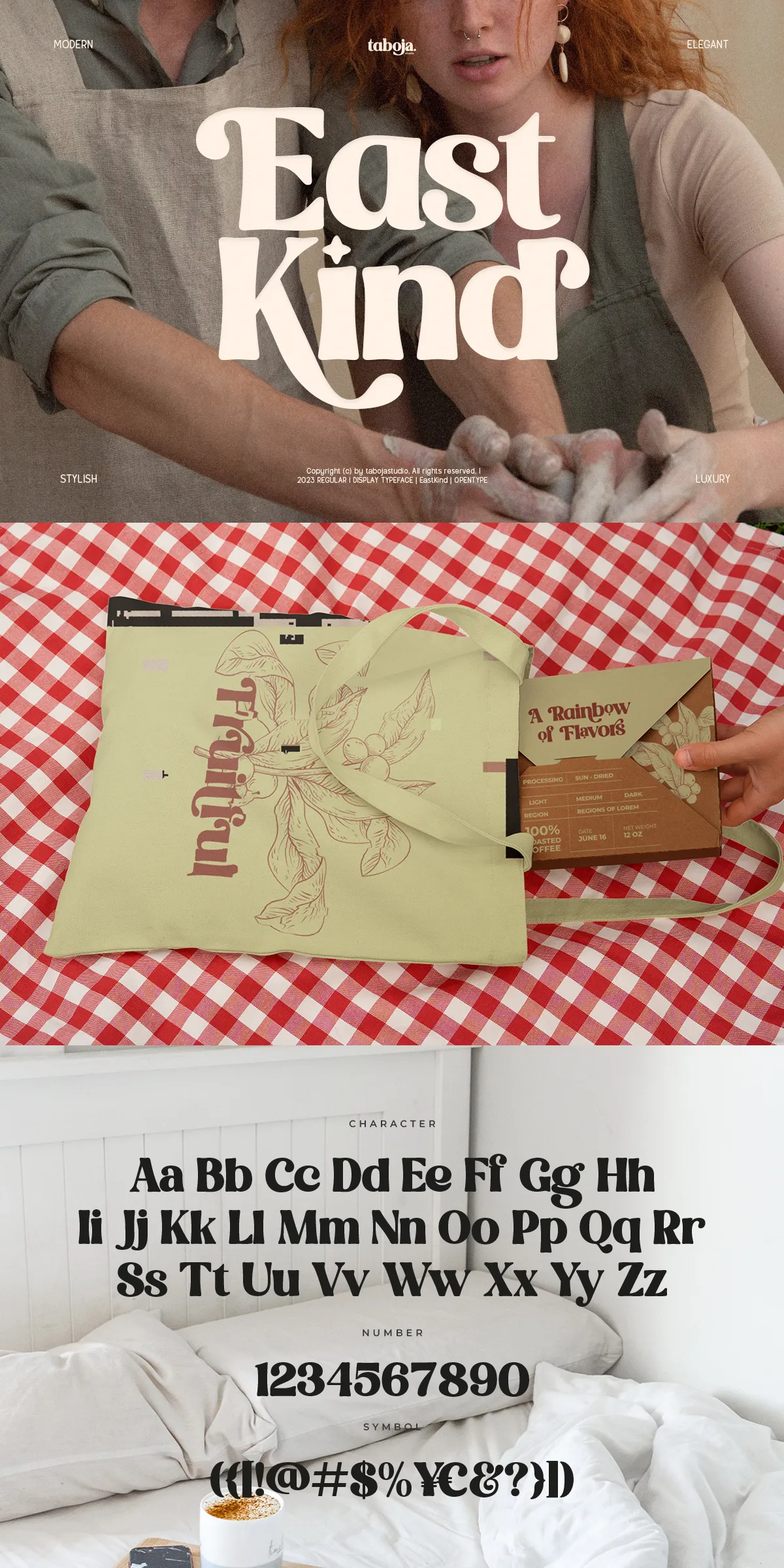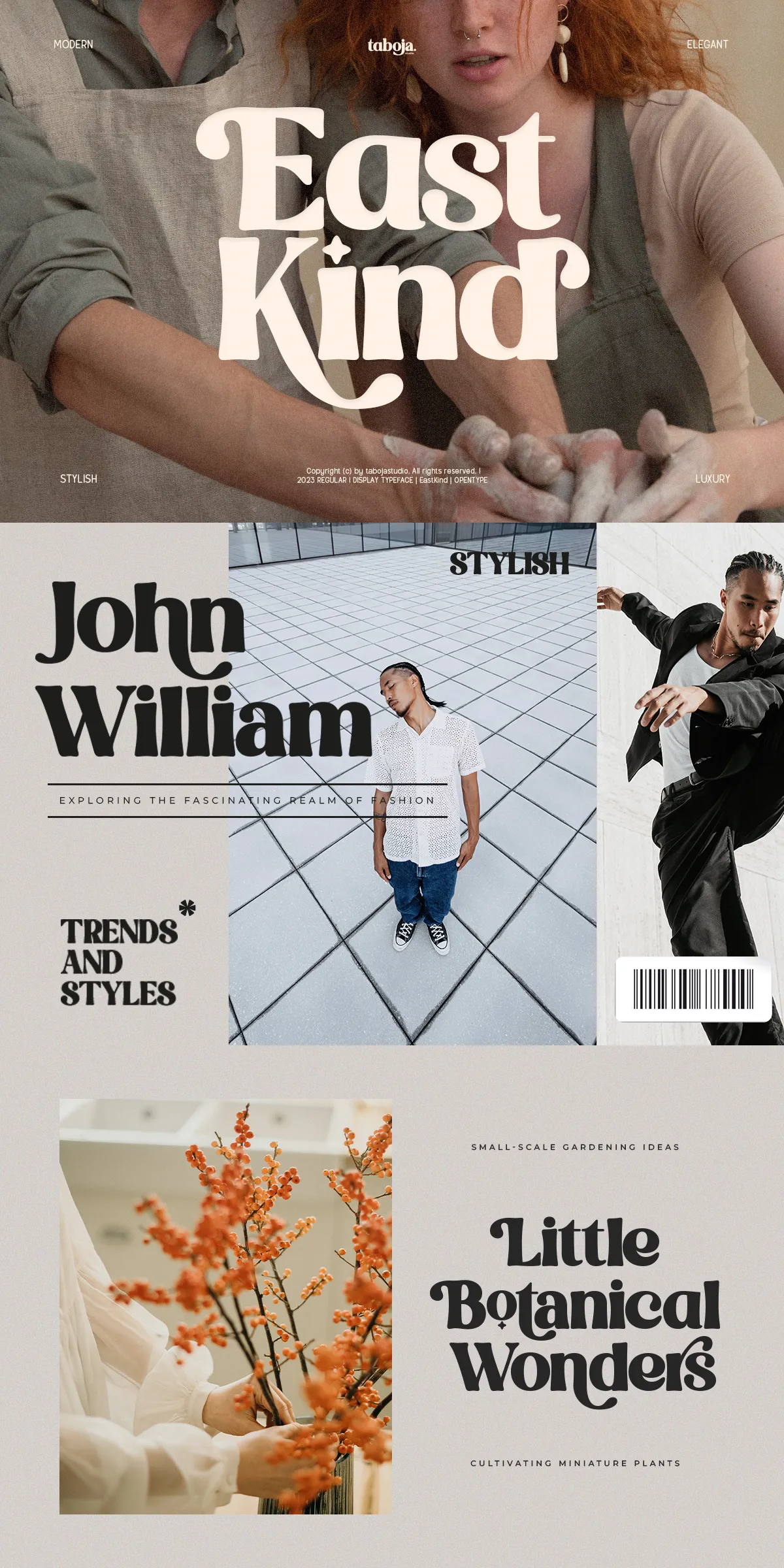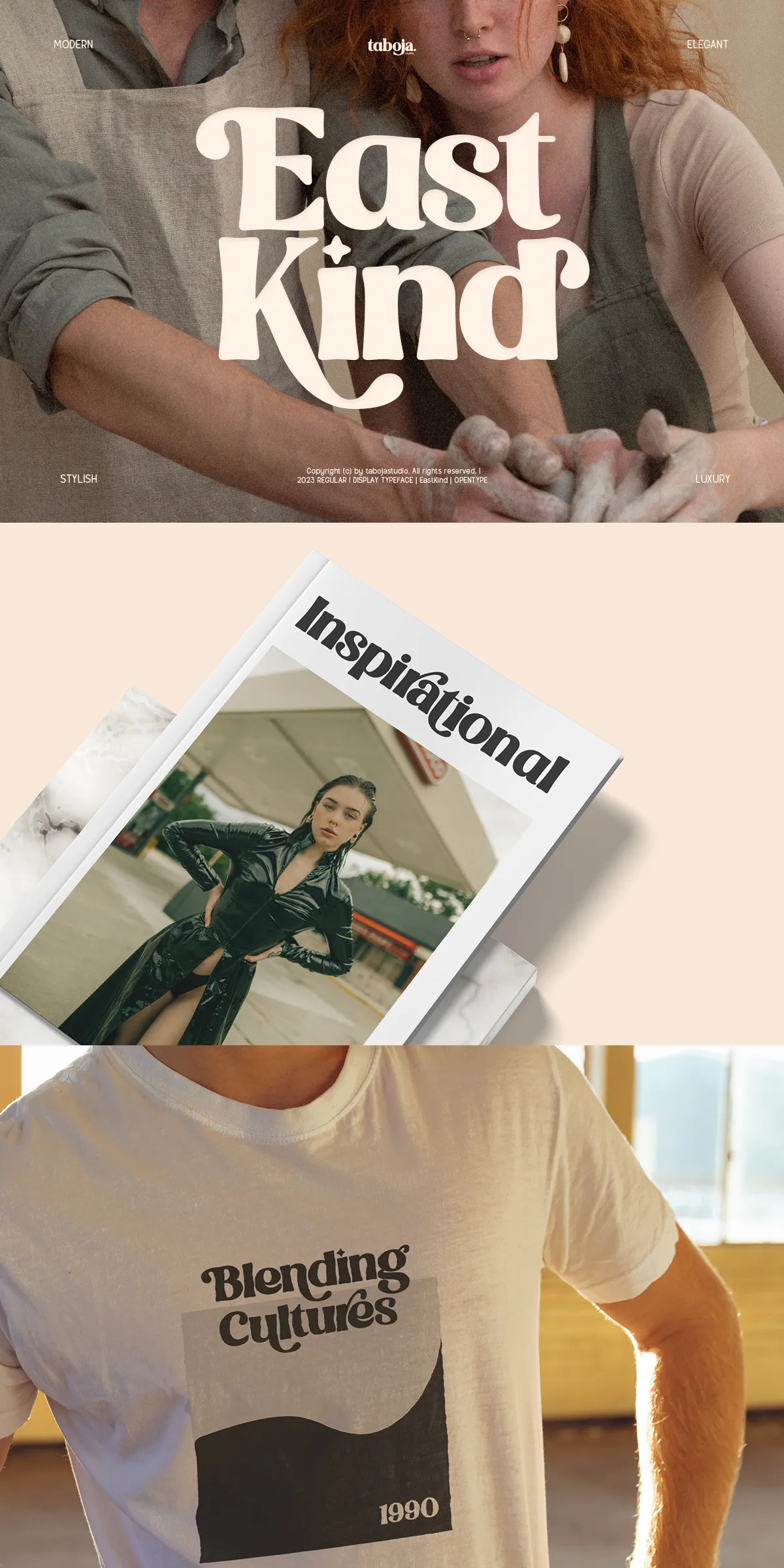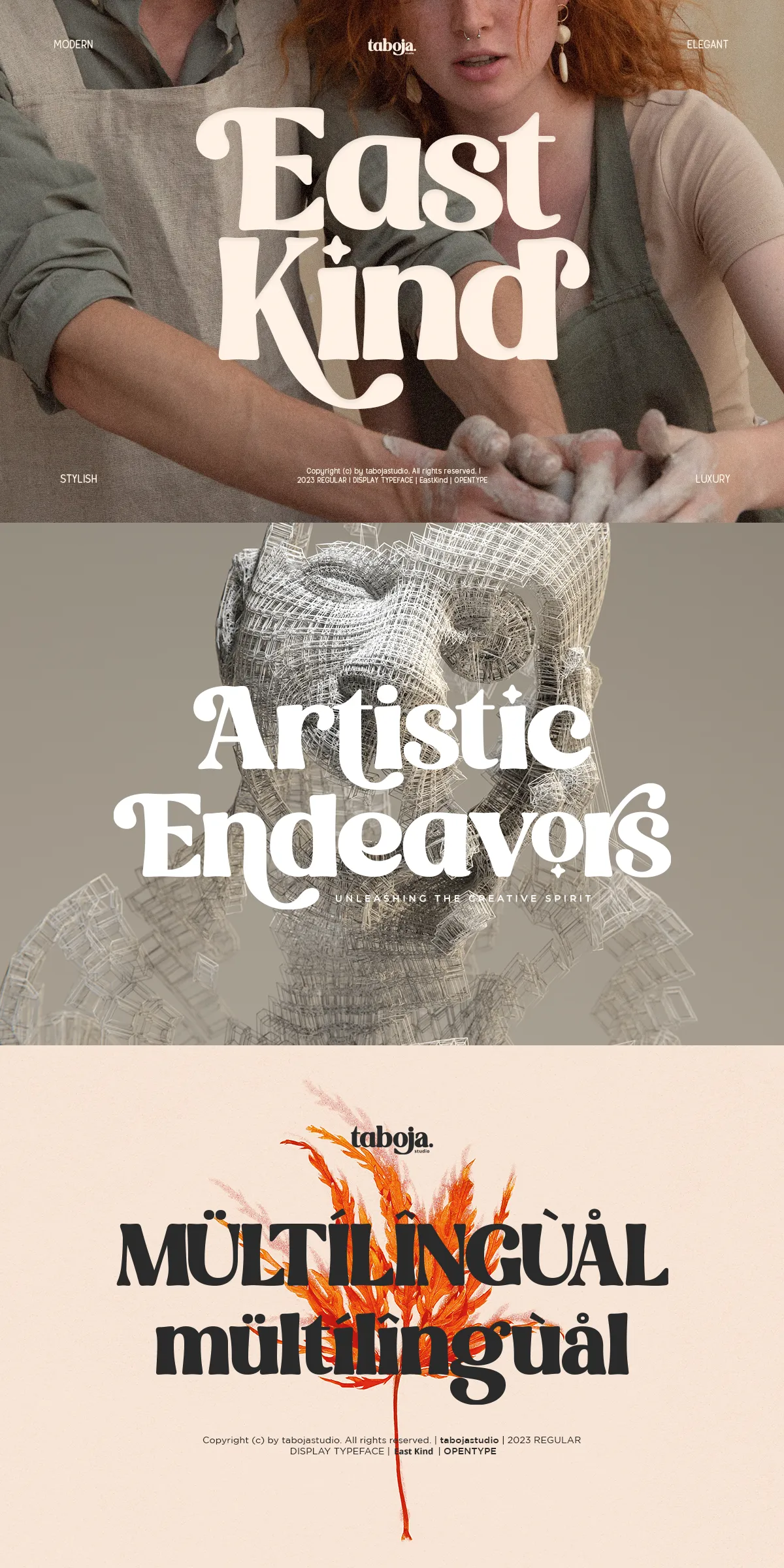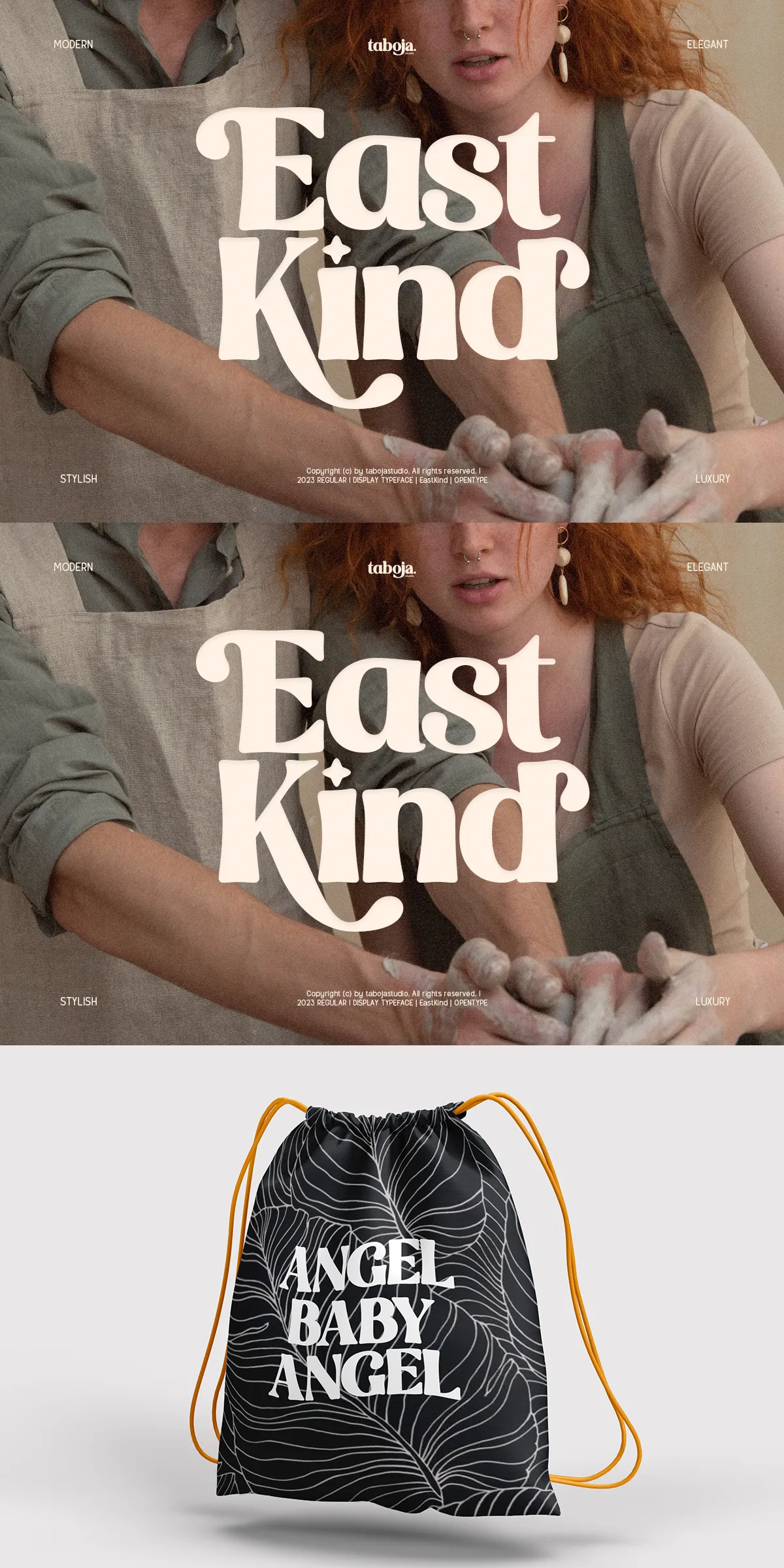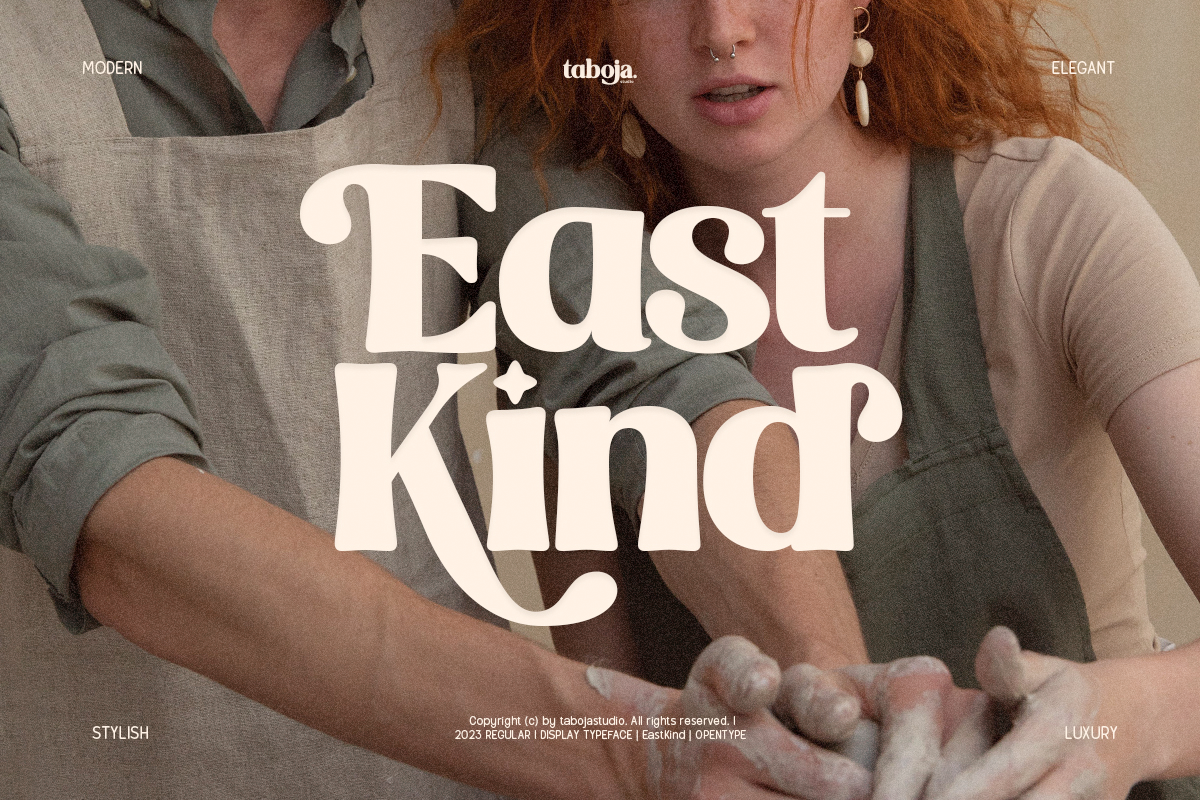
East Kind Serif Font delivers a confident, expressive voice that elevates logos, editorial layouts, packaging, and web projects. The design fuses classical serif proportions with a subtle groovy character, producing a typeface that reads as both refined and energetic. Use East Kind to give headlines presence, to anchor brand systems, or to refresh editorial compositions with a modern-yet-timeless tone.
Versatile Features That Support Broad Creative Applications
East Kind adapts to many design needs thanks to its practical feature set. The family includes regular styles with clearly defined uppercase and lowercase sets. It ships with alternates and ligatures to add personality and rhythm to display text, and it includes complete numerals and punctuation so you can rely on consistent typographic behavior across contexts. Accented characters and multilingual support ensure East Kind works smoothly in diverse international projects.
Technical Details And OpenType Functionality For Designers
Practical Usage Tips To Maximize Impact
Apply East Kind with intent: reserve the groovy alternates and ligatures for headlines and logotypes where character detail will register, and use the regular letterforms for longer headlines and supporting display text. Combine East Kind with a neutral sans-serif for body copy to create clear contrast and improve readability. For packaging and signage, test the font at production scale to ensure that the subtle groovy details reproduce cleanly across materials and printing processes.
Pairing Suggestions And Typographic Best Practices
- Pair with a geometric or humanist sans for modern brand systems that need readability and warmth.
- Use tracking and manual kerning for large display settings and wordmarks to preserve optical balance.
- Enable the alternates and ligatures only where they add clarity or distinctive rhythm to the text.
- Proof in both RGB and CMYK outputs to confirm how stroke weight and contrast translate across media.
Included Glyphs, Language Support, And Delivery
The East Kind package includes: Regular style with full uppercase and lowercase sets, alternates and ligatures, numerals and punctuation, accented characters, and comprehensive multilingual coverage. The font’s Unicode PUA encoding provides reliable access to special glyphs. Please refer to the supplied specimen images or glyph map for the complete character inventory before finalizing artwork.